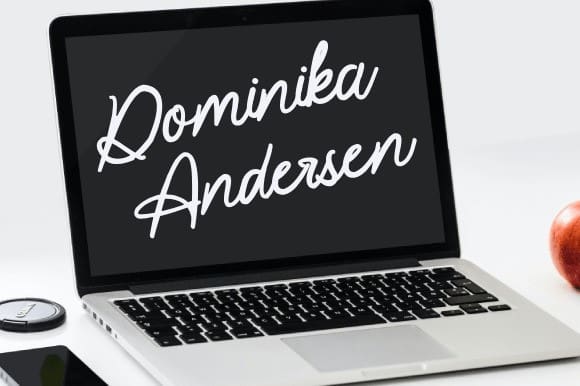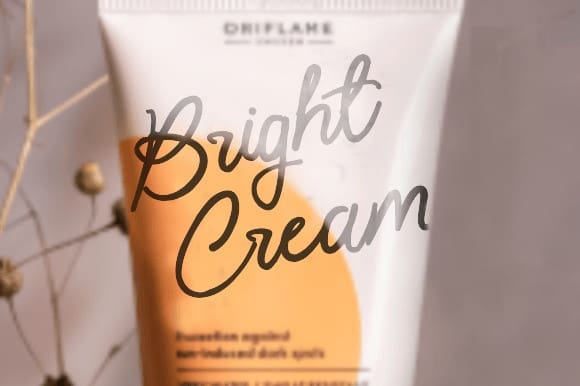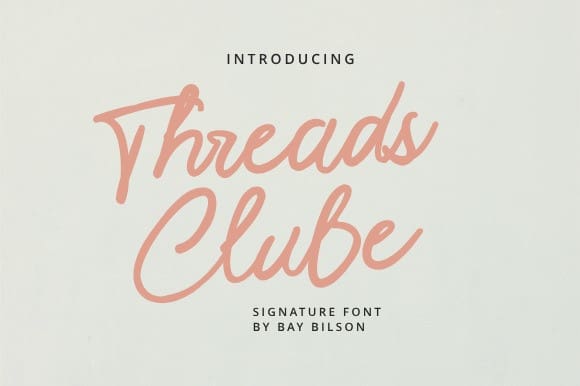
Threads Clube Font
Threads Clube Font is a charming script font that effortlessly combines elegance with a touch of modernity. This typeface is characterized by its flowing cursive strokes and conveys a sense of sophistication and warmth. The letters connect gracefully, creating a smooth and harmonious flow of words.
With a balanced mix of curves and loops, “Thread” exudes a timeless charm that is suitable for a variety of design applications. This font conveys a sense of creativity and versatility, making it ideal for both formal and informal contexts. The strokes are subtly designed, adding a subtle feel to any project where the font is applied